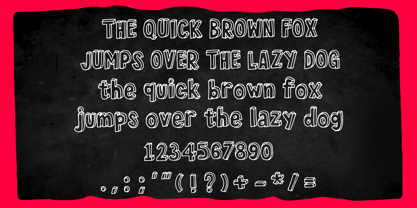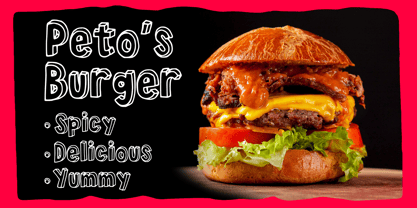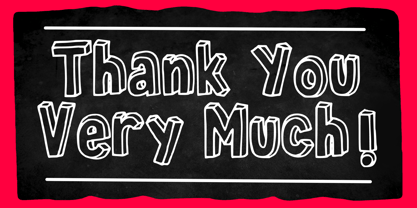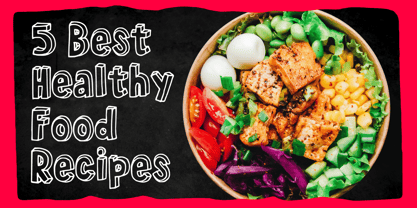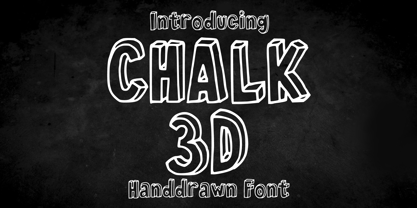
Chalk 3 d
by Mvmet
The Chalk 3 d Font Family was designed by Gabriel Valentinus and published by Mvmet. Chalk 3 d contains 1 styles. More about this family
Chalk 3D is a fun and cool 3D handdrawn font inspired by natural chalk writing and drawing, suitable for your school projects and more. It will elevate a wide range of design projects to the highest level. You can use this font for many design ideas such as stickers, t-shirt designs, amazing logo designs, magazine or book covers, comics, cartoon drawings, and many more. This font will add a super cool touch to your designs!
Designers: Gabriel Valentinus
Foundry: Mvmet